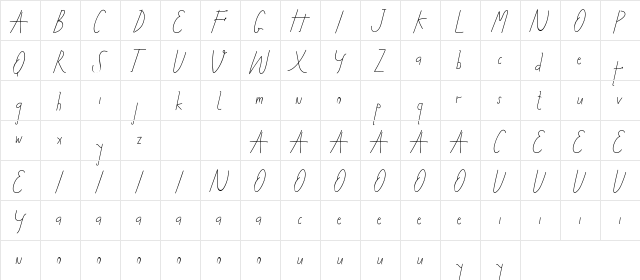
Machaela Demo Regular
| Foundry | Edric Studio |
| Designer | Saila Nurissalma & Suci Anita |
Design Context for Machaela Demo Typeface
Machaela Demo takes a measured approach to typography — its balanced proportions and neutral character make it a reliable workhorse for both digital and print work.